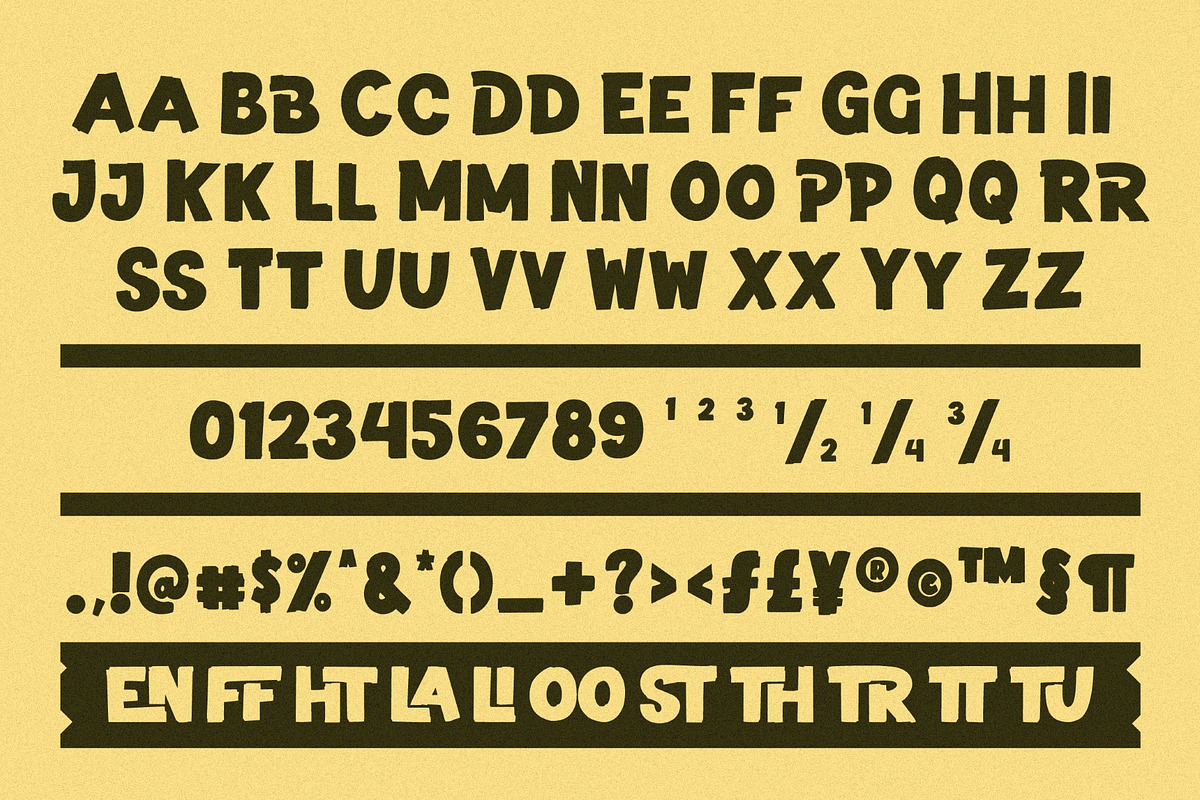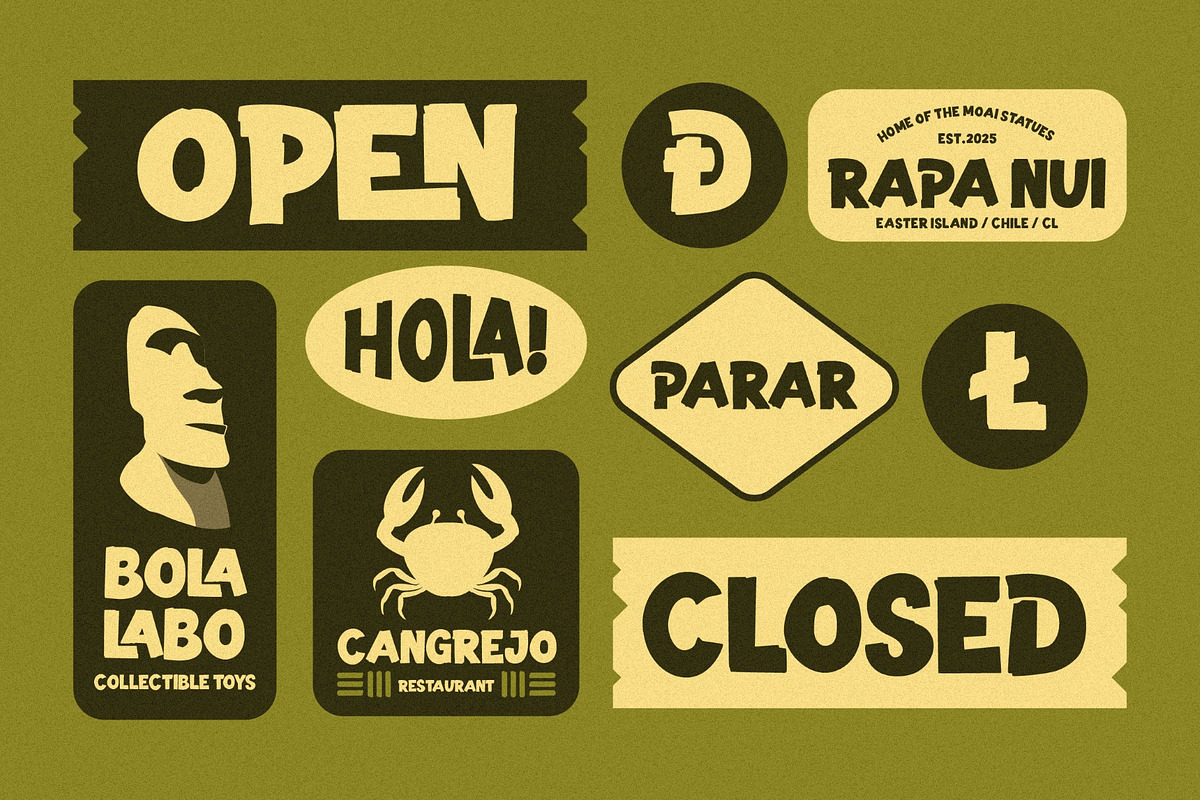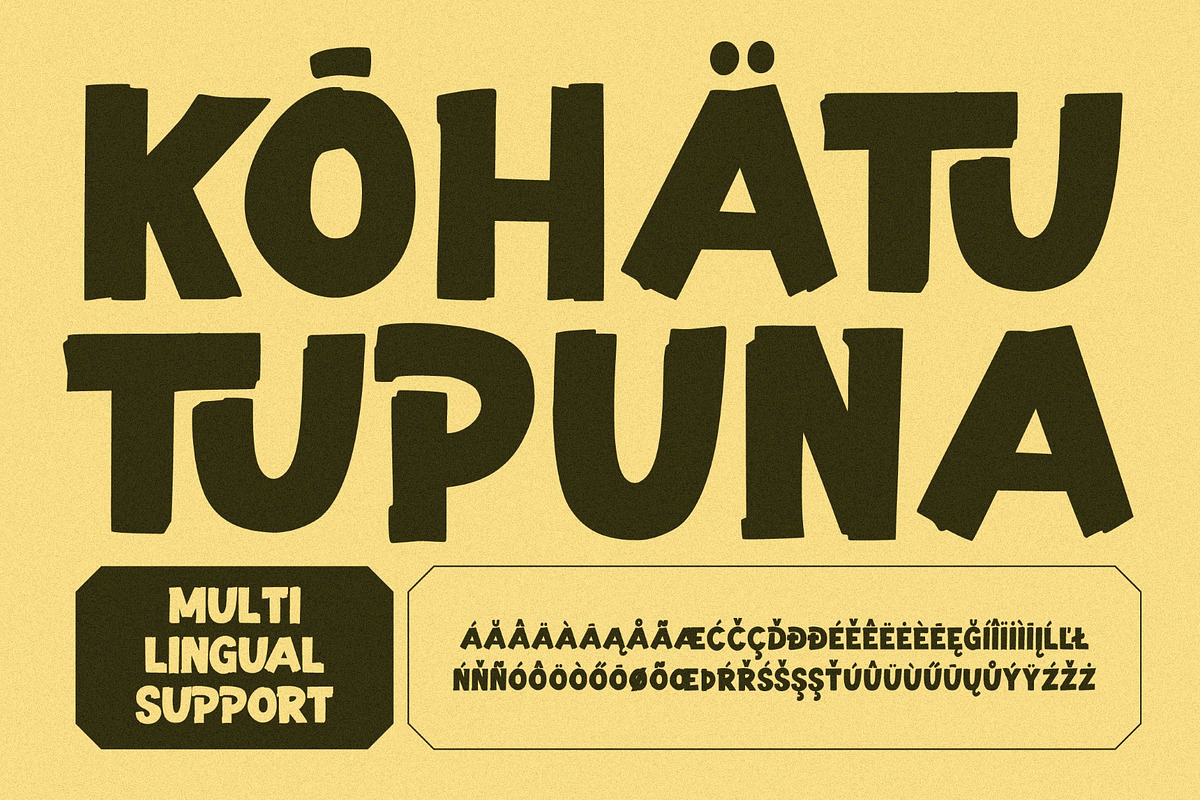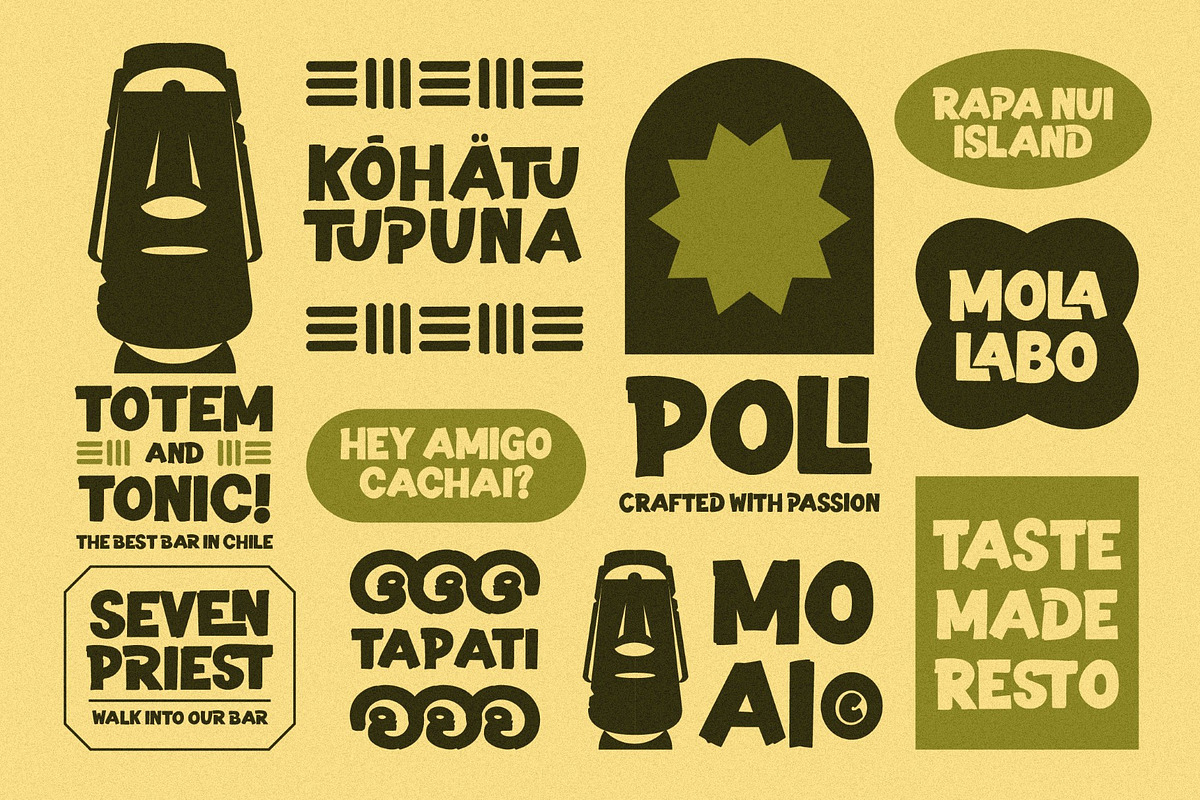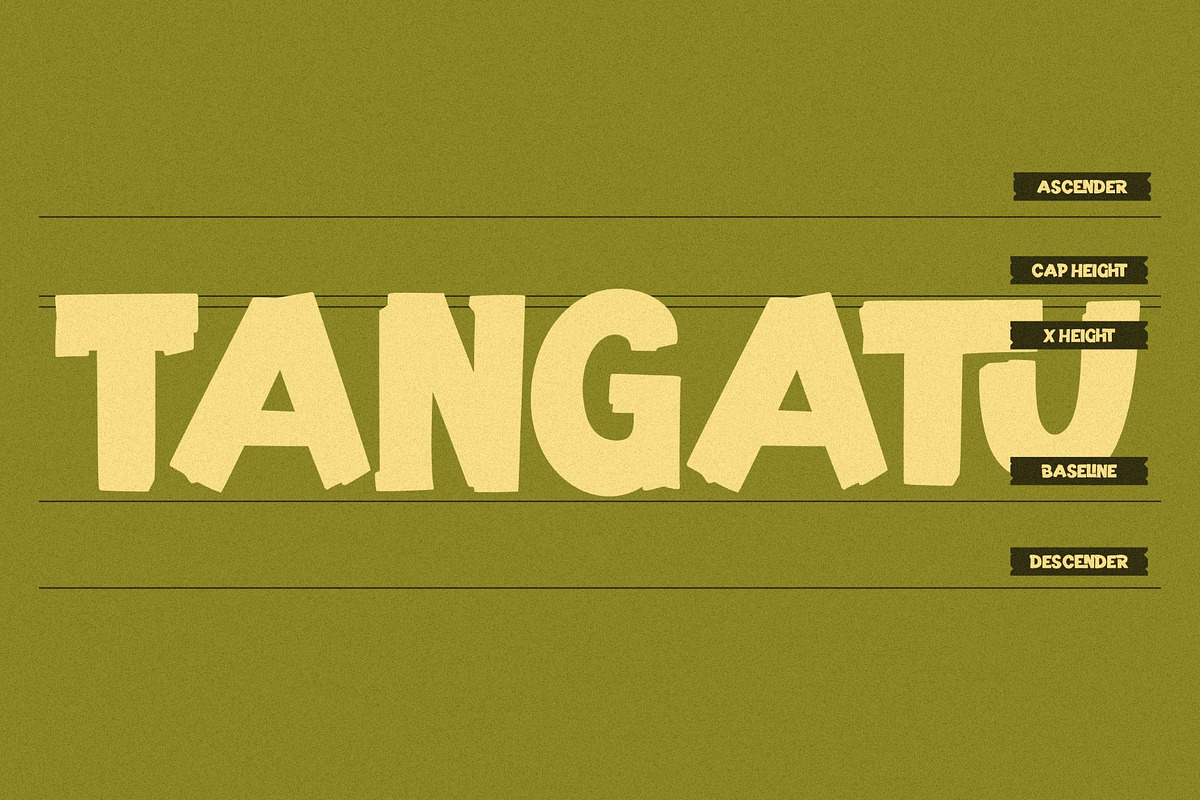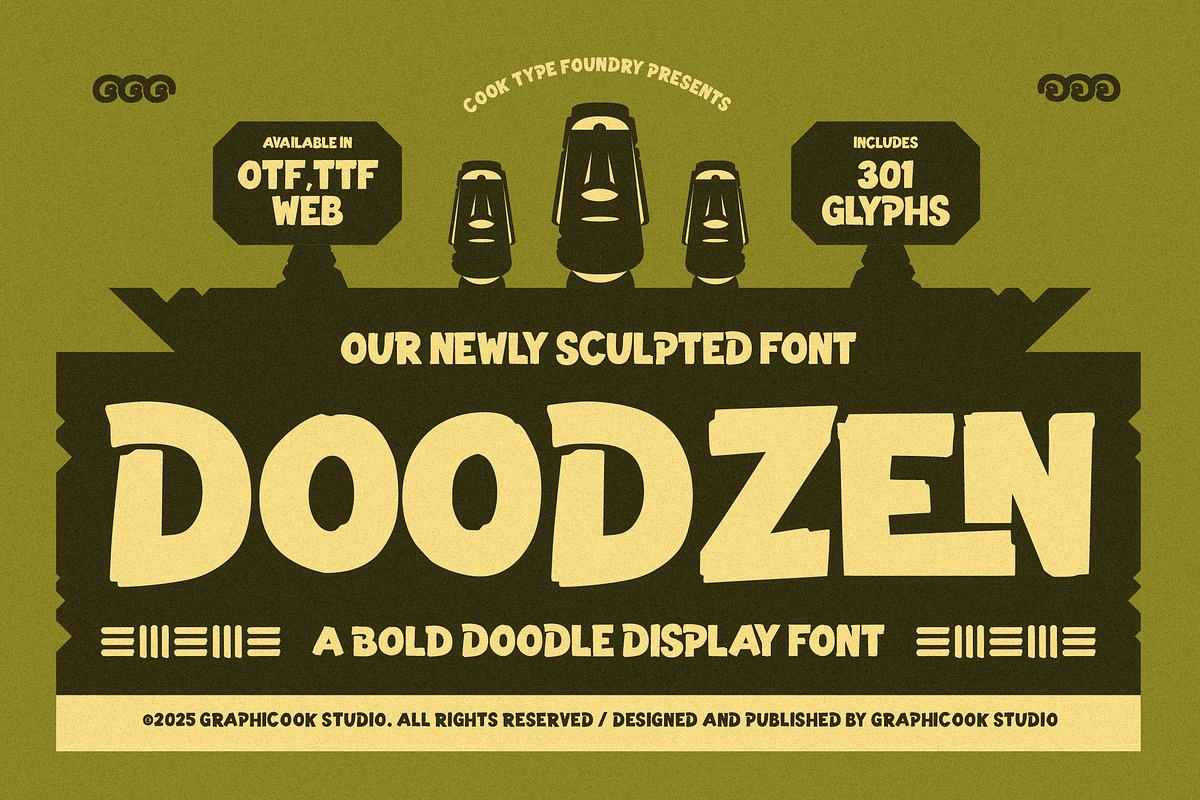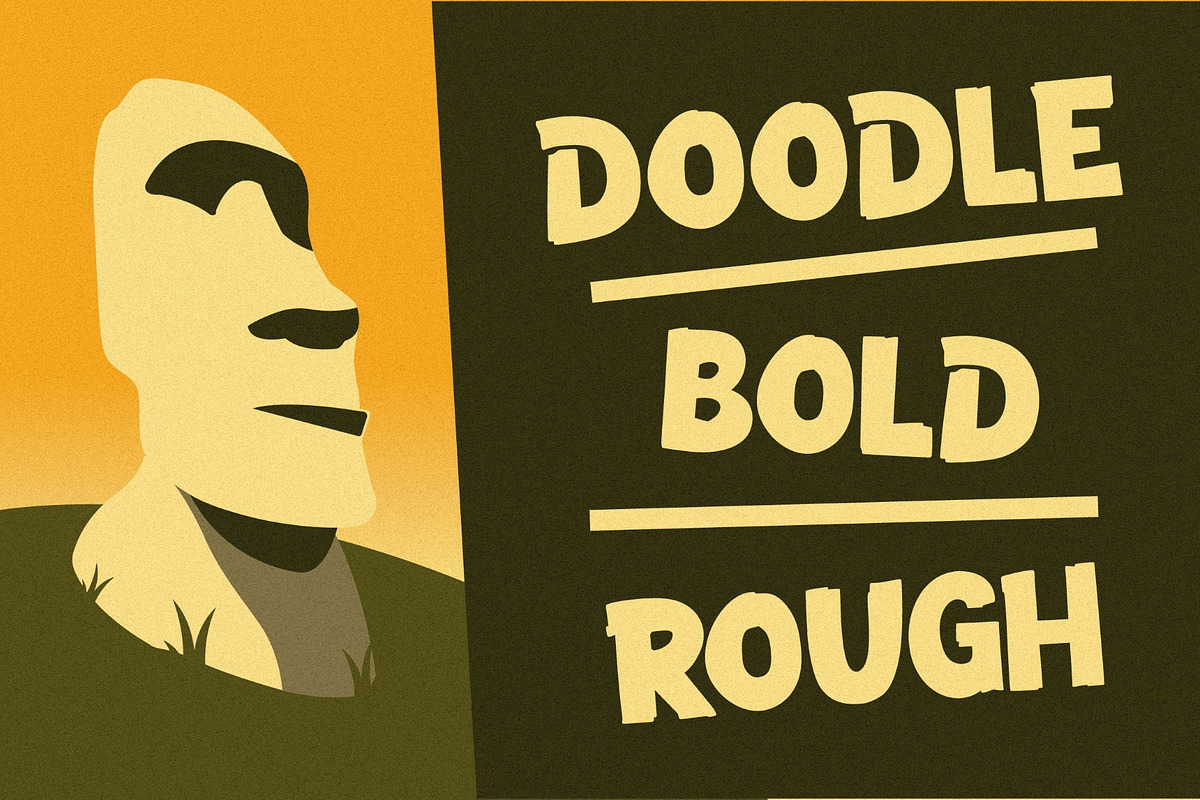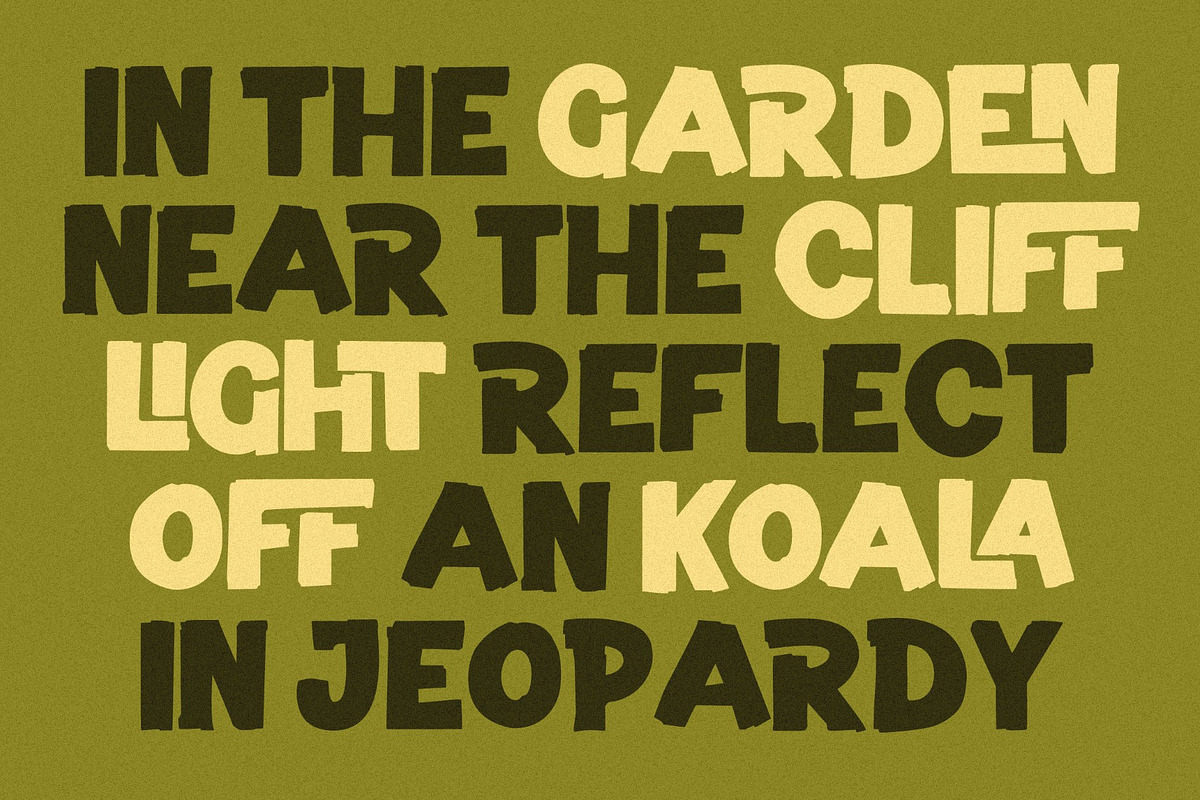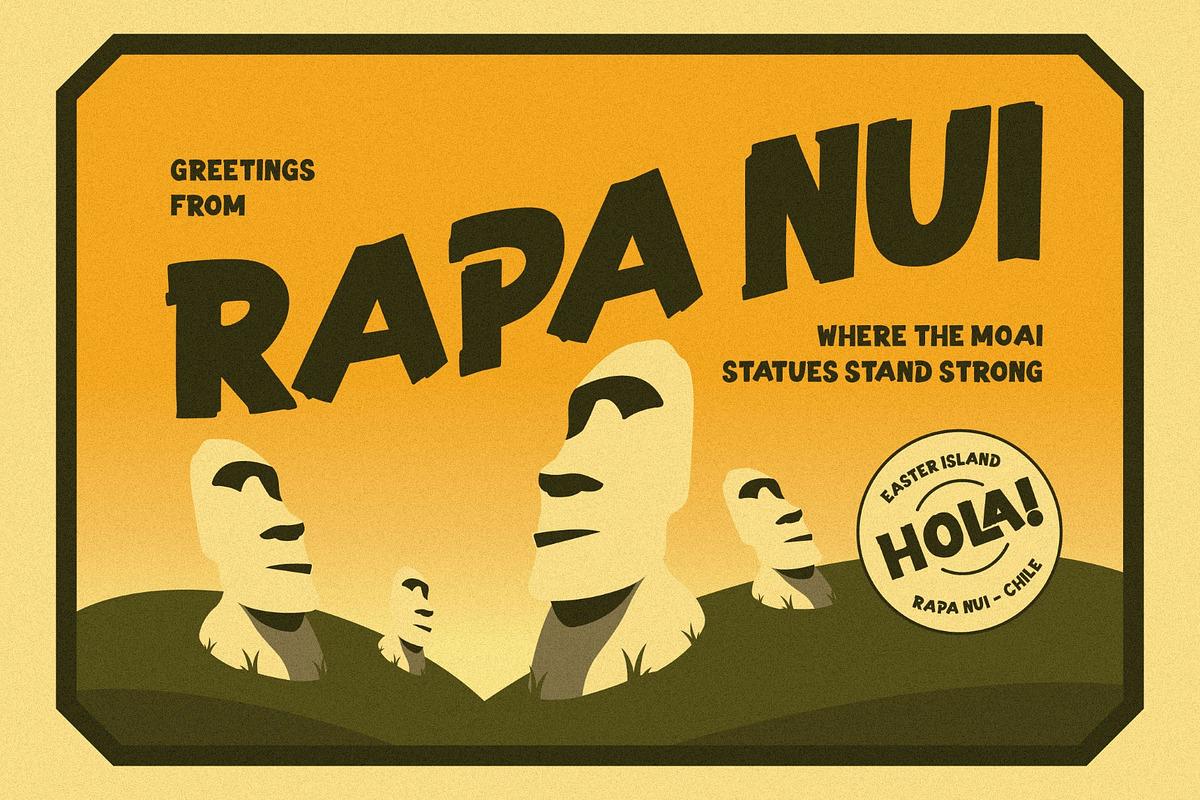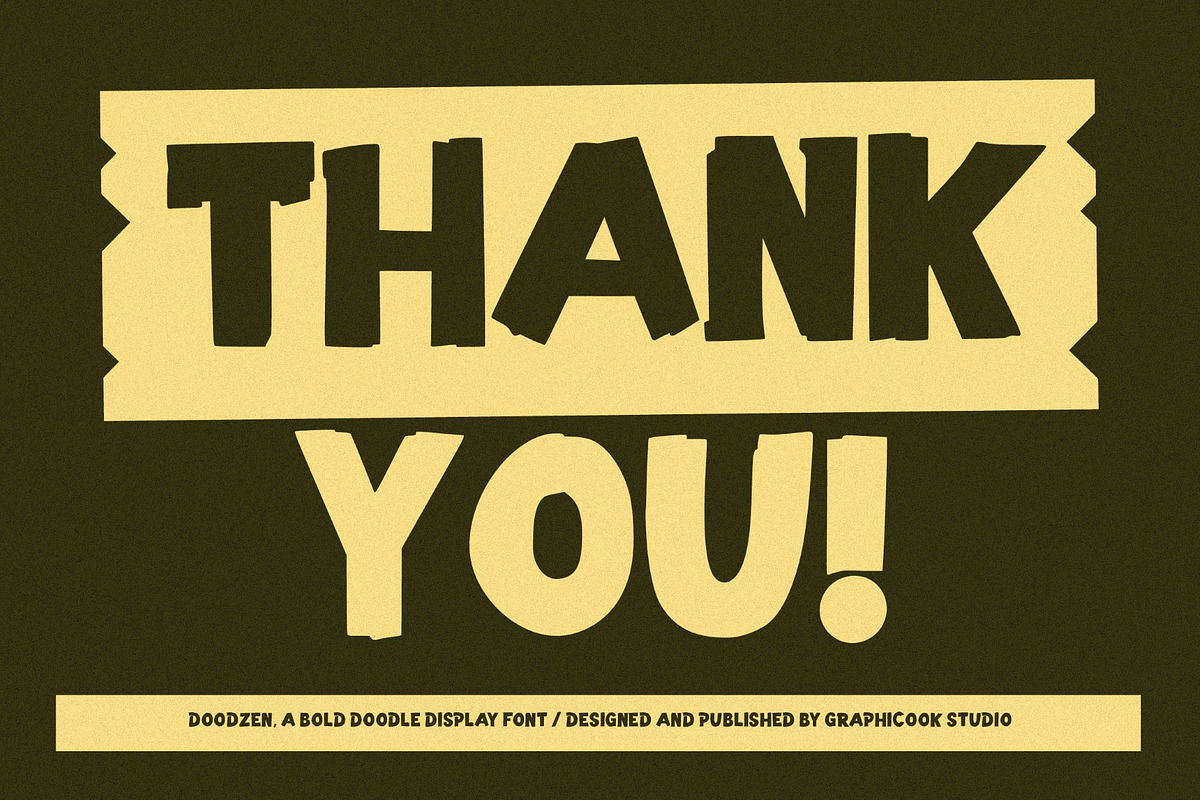
Doodzen
Doodzen is a bold, hand-carved display font inspired by traditional carvings and sculptural forms. Its organic, irregular shapes create a raw, tactile look—perfect for tribal, folklore, cultural, or thematic designs that need an authentic handcrafted feel.
It is perfect for headlines, logotypes, magazines, packaging, quotes, movies, games, cover albums, book covers, and flyers, it's a perfect solution for creating eye-catching designs that stand out in any context.